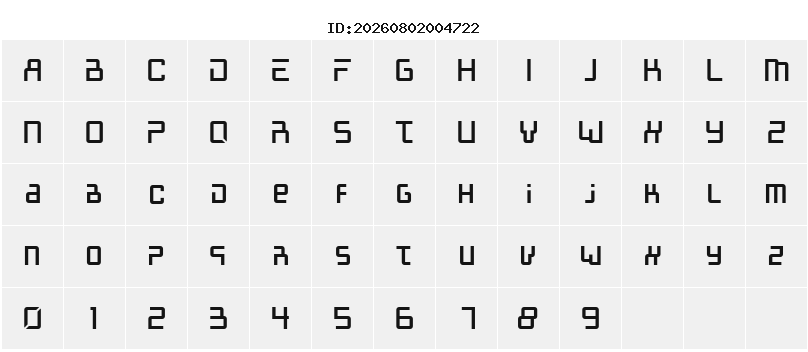
• Designer: Murat Yegul
About McAlberto.ttf
McAlberto.ttf is a modern, elegant sans-serif font designed for ultimate readability and visual harmony. Perfect for branding, headlines, web design, and print materials.